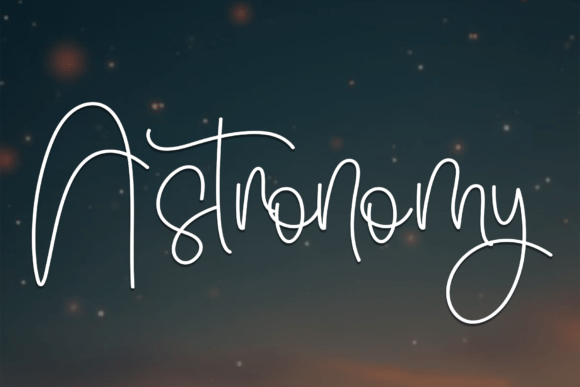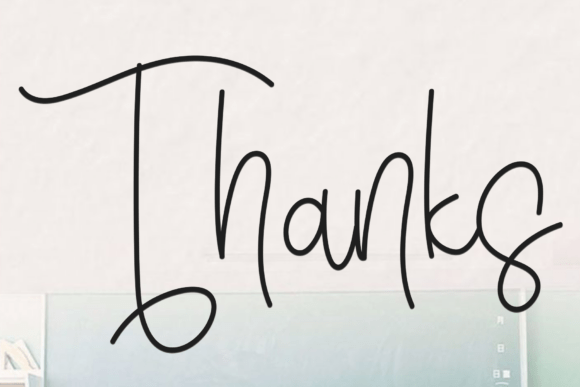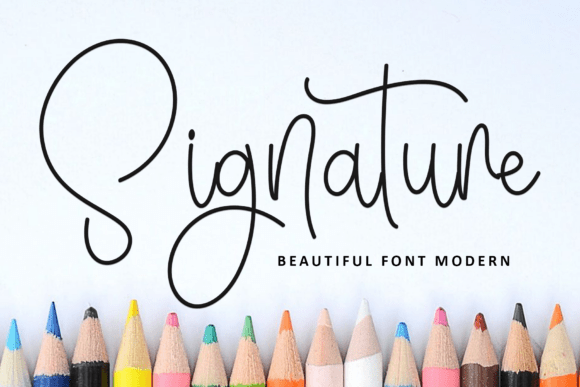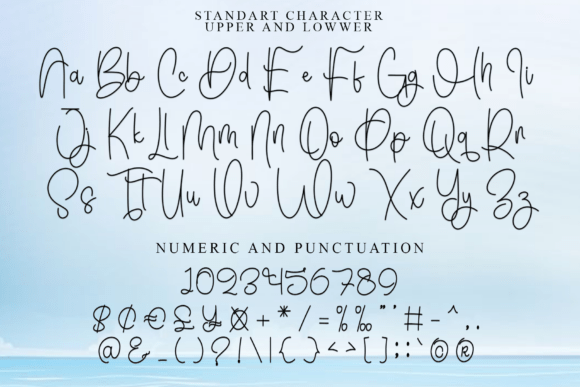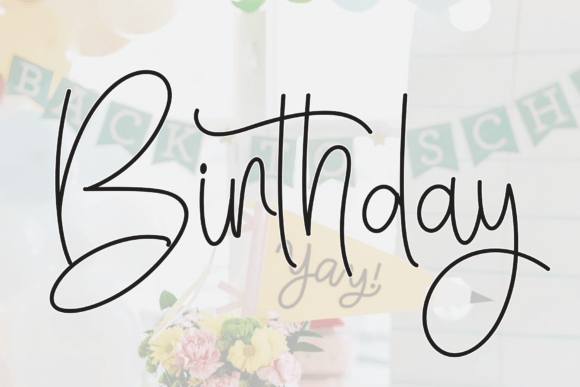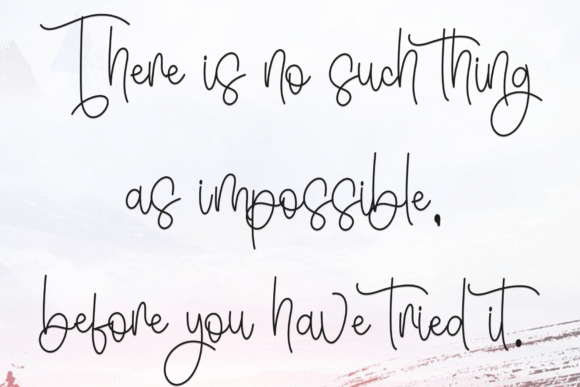
Happy Birthday to Typography: Discovering the Best Birthday Font
As a designer, there’s nothing quite like the thrill of brainstorming creative ideas for a special occasion. You’re surrounded by colorful pens, sticky notes, and a sea of digital fonts, all waiting to be combined into the perfect design. And then, it hits you – a spark of inspiration that sets your project ablaze with creativity. For many designers, this moment is often sparked by the perfect font.
Enter the Best Birthday Font, a festive and merry typeface that captures the essence of the holiday season. With its decorative elements and whimsical flair, this font adds a touch of enchantment to any design. Whether you’re crafting greeting cards, gift tags, or holiday-themed projects, the Best Birthday Font brings a cheerful and nostalgic ambiance to your words.
This PUA-encoded font is a treasure trove of glyphs and ligatures, waiting to be explored and put to good use. As a designer, you’ll appreciate the ease with which you can access its amazing features, making it the perfect addition to your typography arsenal.
Best Birthday Font Key Features
- Unique Design: The Best Birthday Font features a playful, cursive design with swashes and flourishes, making it perfect for birthday celebrations and special occasions.
- Customization Options: The font includes a range of customization options, including ligatures, swashes, and alternate characters, allowing designers to add a personal touch to their designs.
Best Birthday Font Review
Overall, I was excited to dive into “Best Birthday Font” and see what it had to offer. Here are my honest thoughts:
- Playful and whimsical design: The font’s curly and bubbly aesthetic is perfect for adding a celebratory feel to birthday designs.
- Overused design: While the font’s playful design is a strength, it’s also a weakness in that it may be too on-the-nose for some designs.
- Limited versatility: The font’s curly design may not be suitable for all types of birthday designs, such as more formal or elegant celebrations.
In conclusion, “Best Birthday Font” is a fun and playful addition to any design, but it may not be the best choice for every birthday celebration. While it’s customizable and easy to use, its limitations may make it less versatile than other font options. If you’re looking for a fun and festive font for a casual birthday design, this might be the perfect choice. However, if you’re looking for something more formal or elegant, you may want to consider other options.
The Best Birthday Font is ideal for creating eye-catching birthday invitations, party banners, and social media posts. It’s also perfect for adding a personal touch to birthday cards, gift tags, and other celebratory materials.